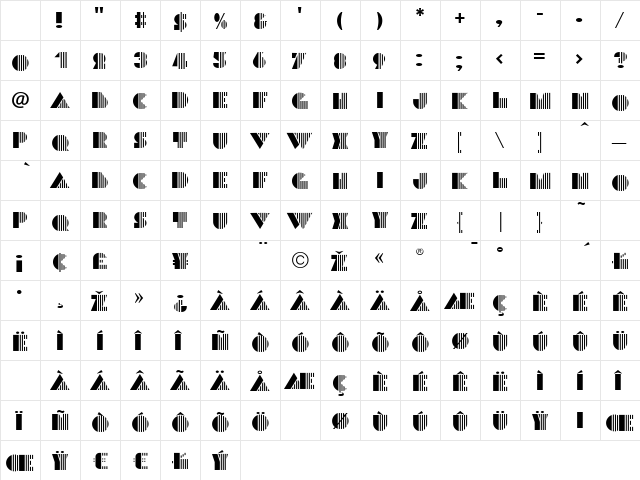
Groove Regular Free Font
Groove Regular
Design Context for Groove
Groove is a composed and adaptable typeface that performs quietly and consistently across a wide range of design contexts.